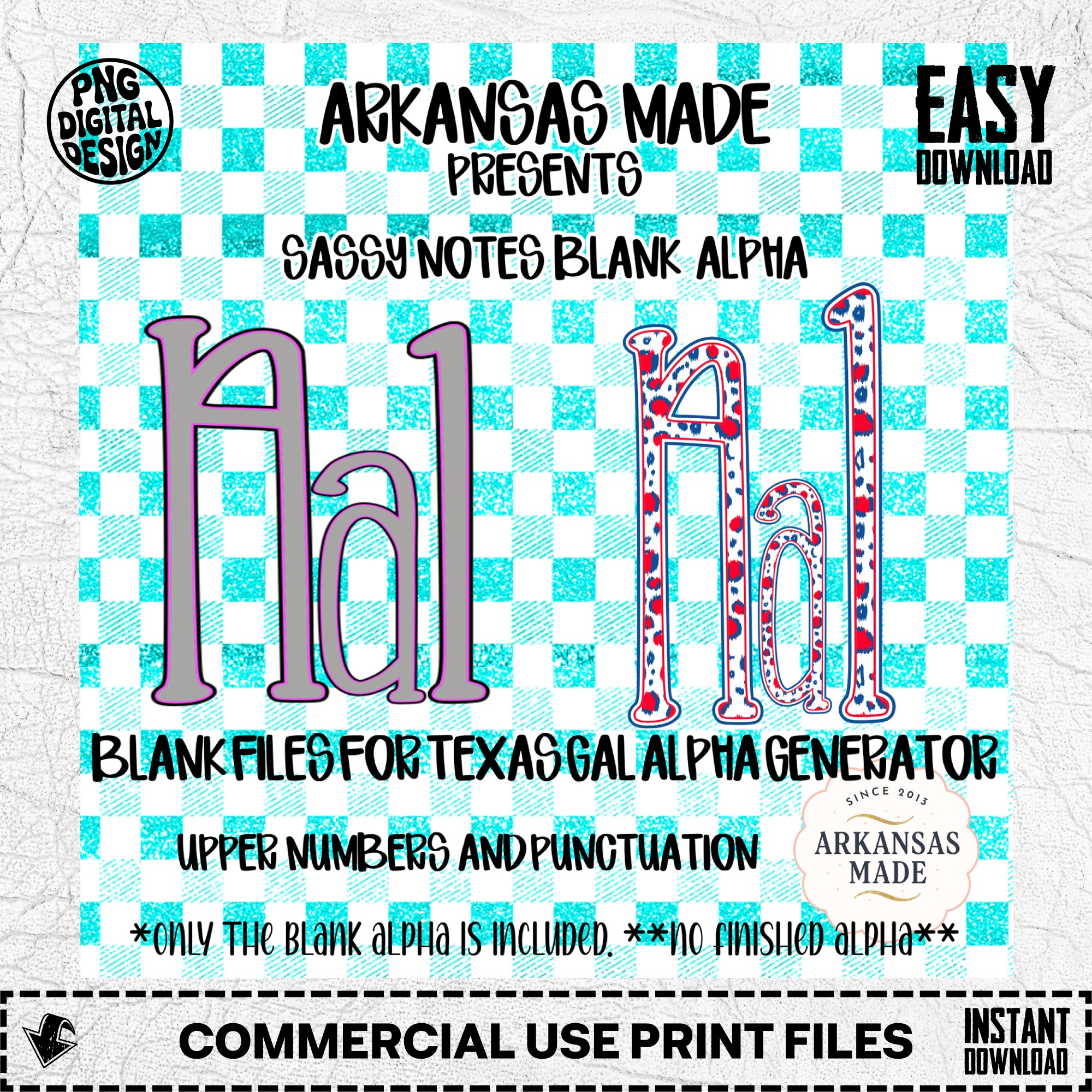
Unlock endless creativity with these Blank Digital Fillable Alphas, perfect for your Texas Gal Alpha Generator projects. Get instant access to SVG and PNG files! This digital alpha set is designed for crafters and small business owners looking to create unique, personalized items. Fill these versatile blank outlines with any pattern or texture to make custom t-shirts, tumblers, signs, and more. Ideal for DIY enthusiasts and creative entrepreneurs, enabling countless custom designs for any occasion.